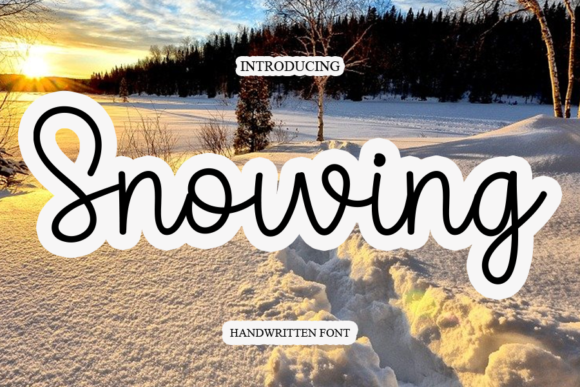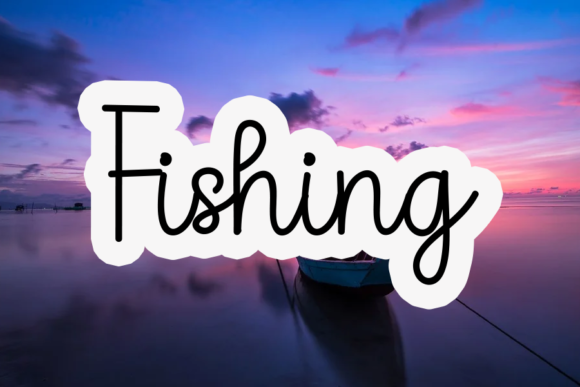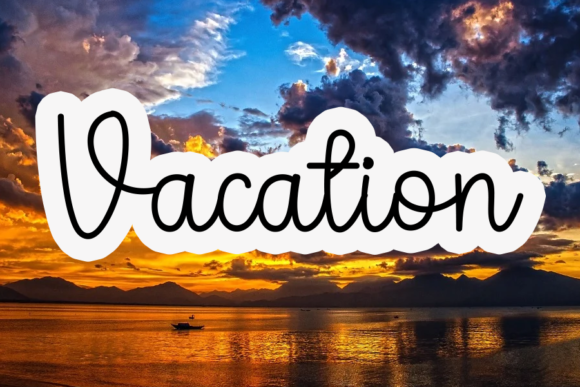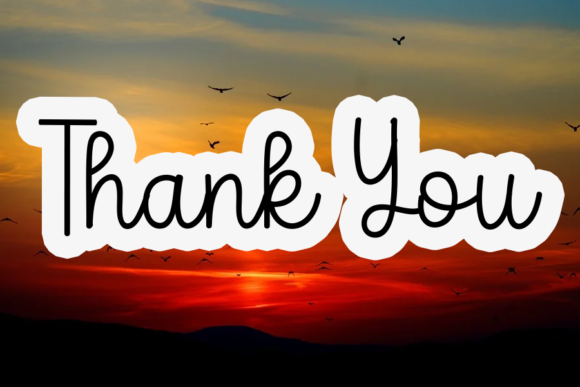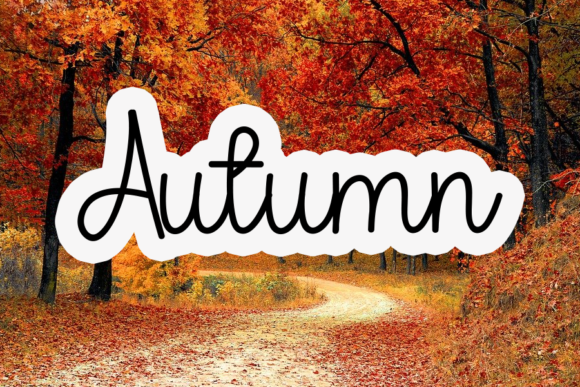
Snowing Font
About Snowing Font
Snowing is a delicate and chic handwritten font. This versatile font has a wide spectrum of applications ranging from greeting cards to headlines and logos!